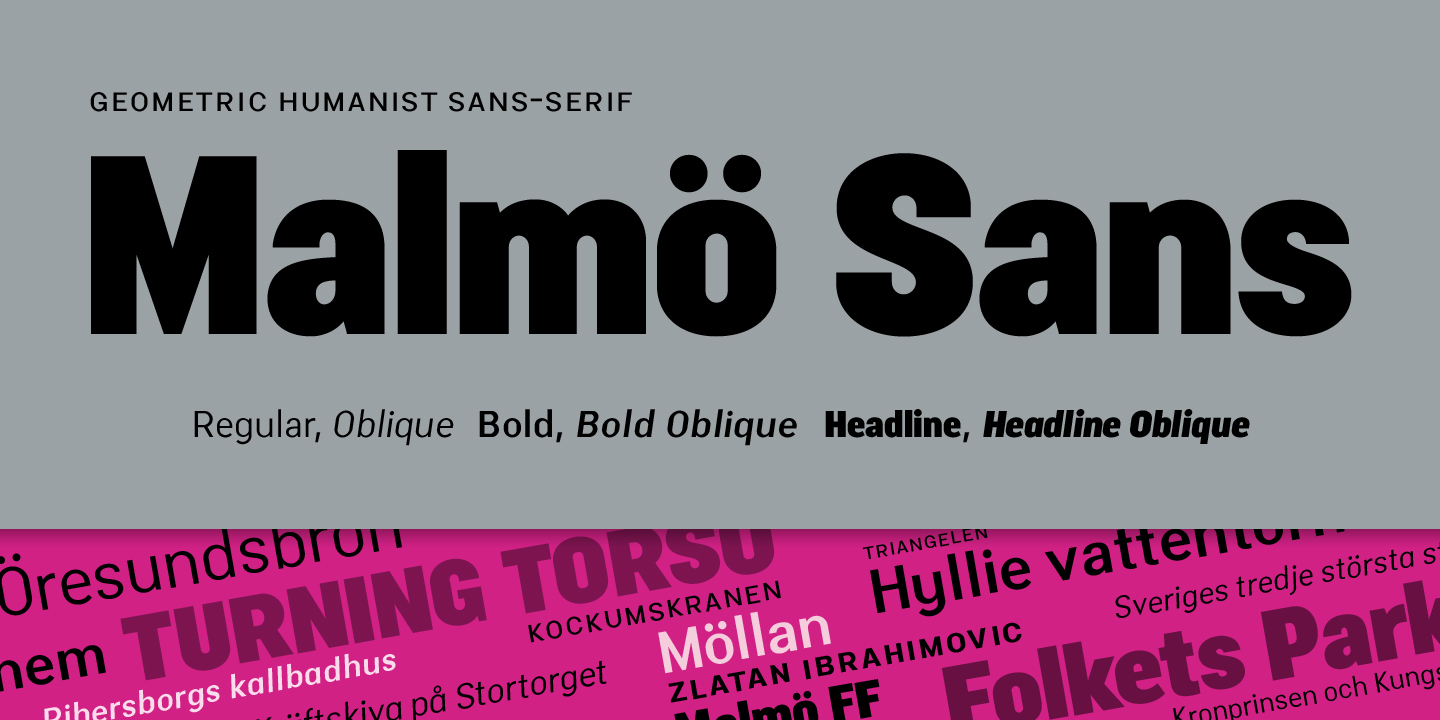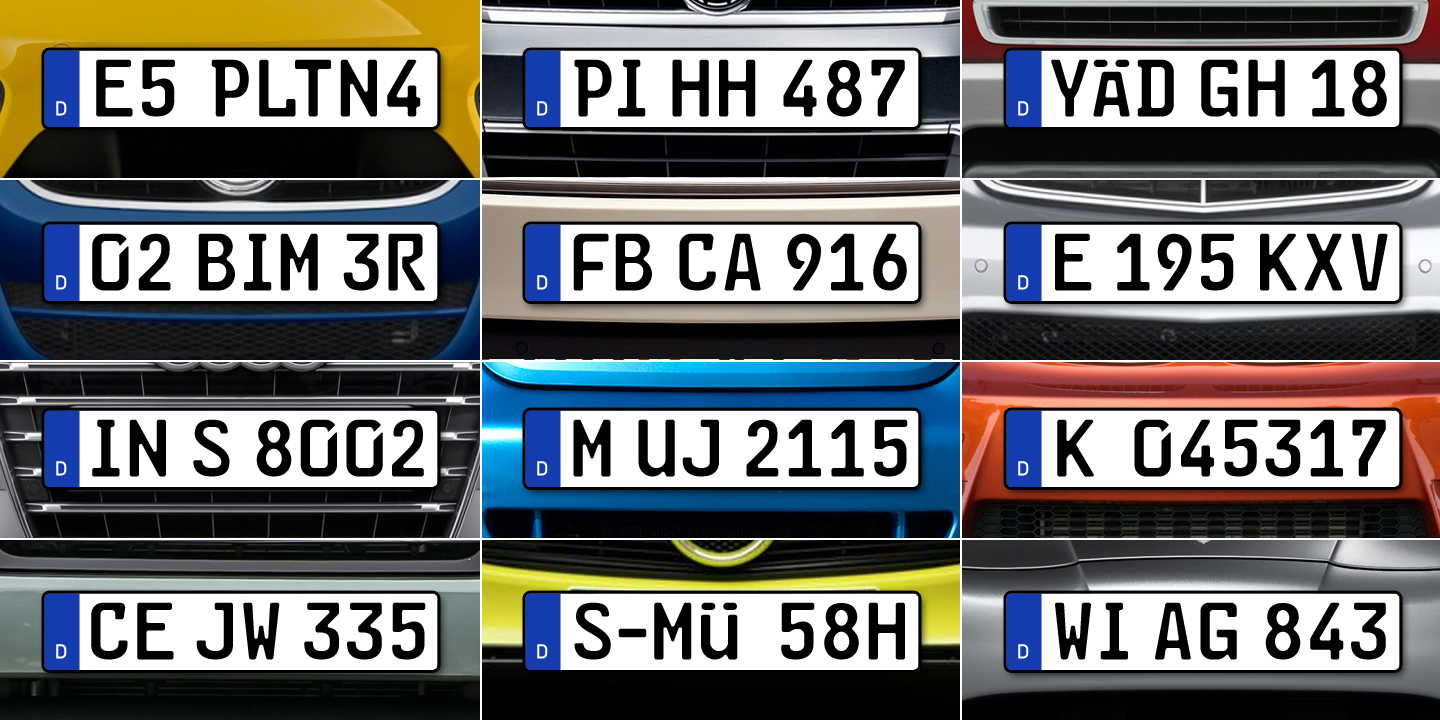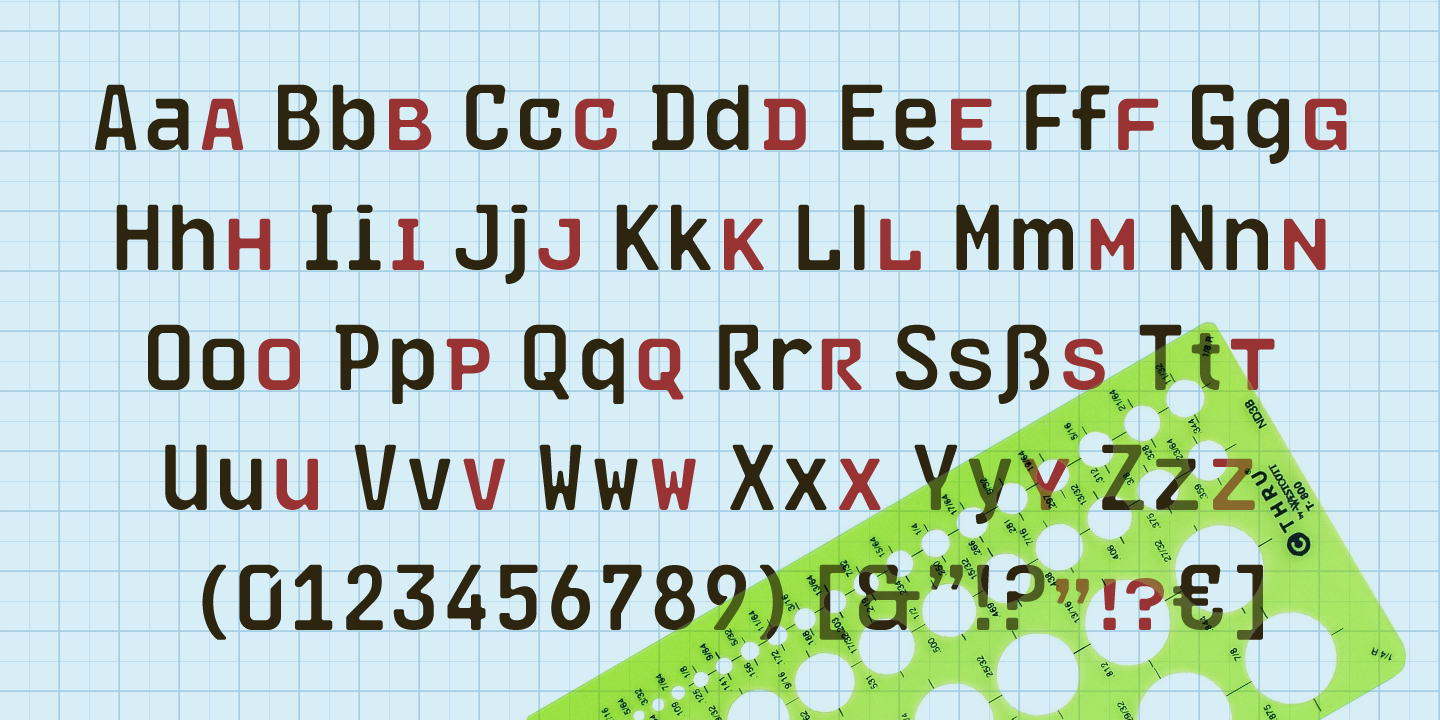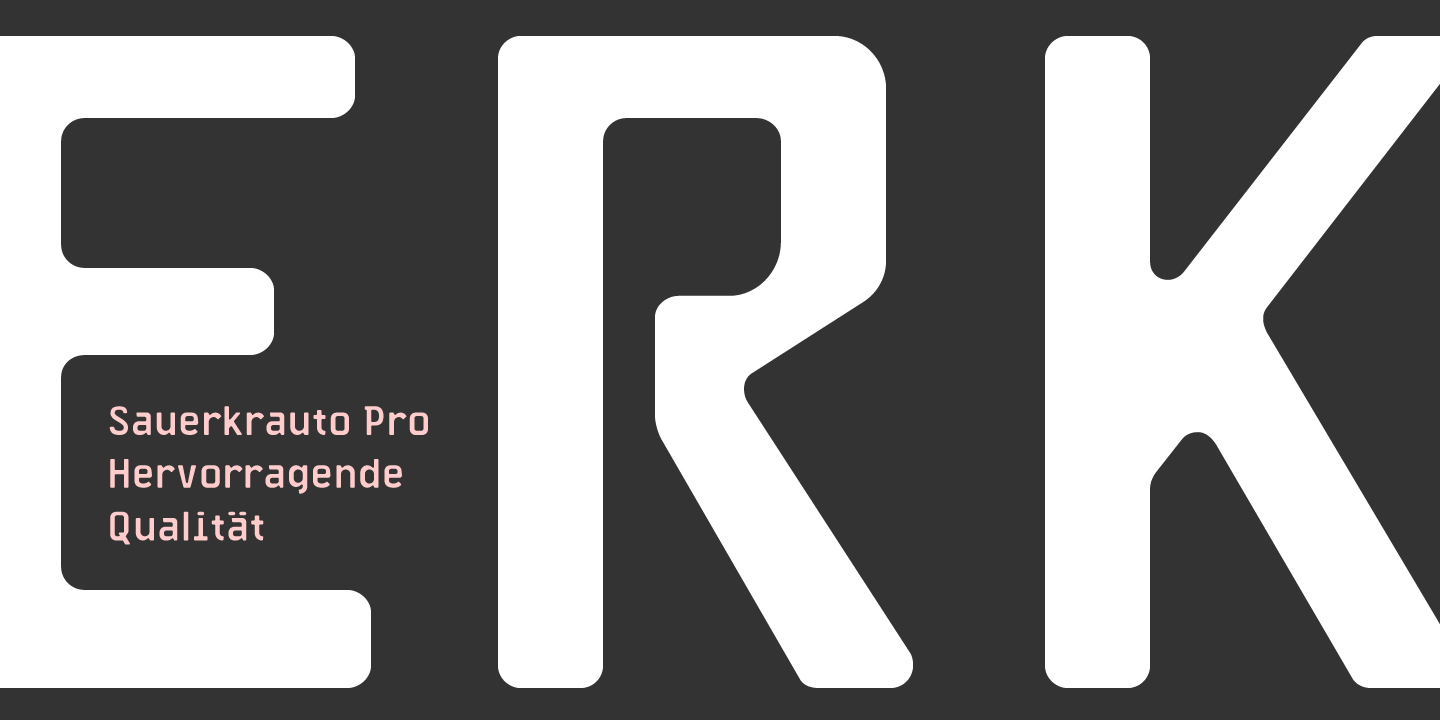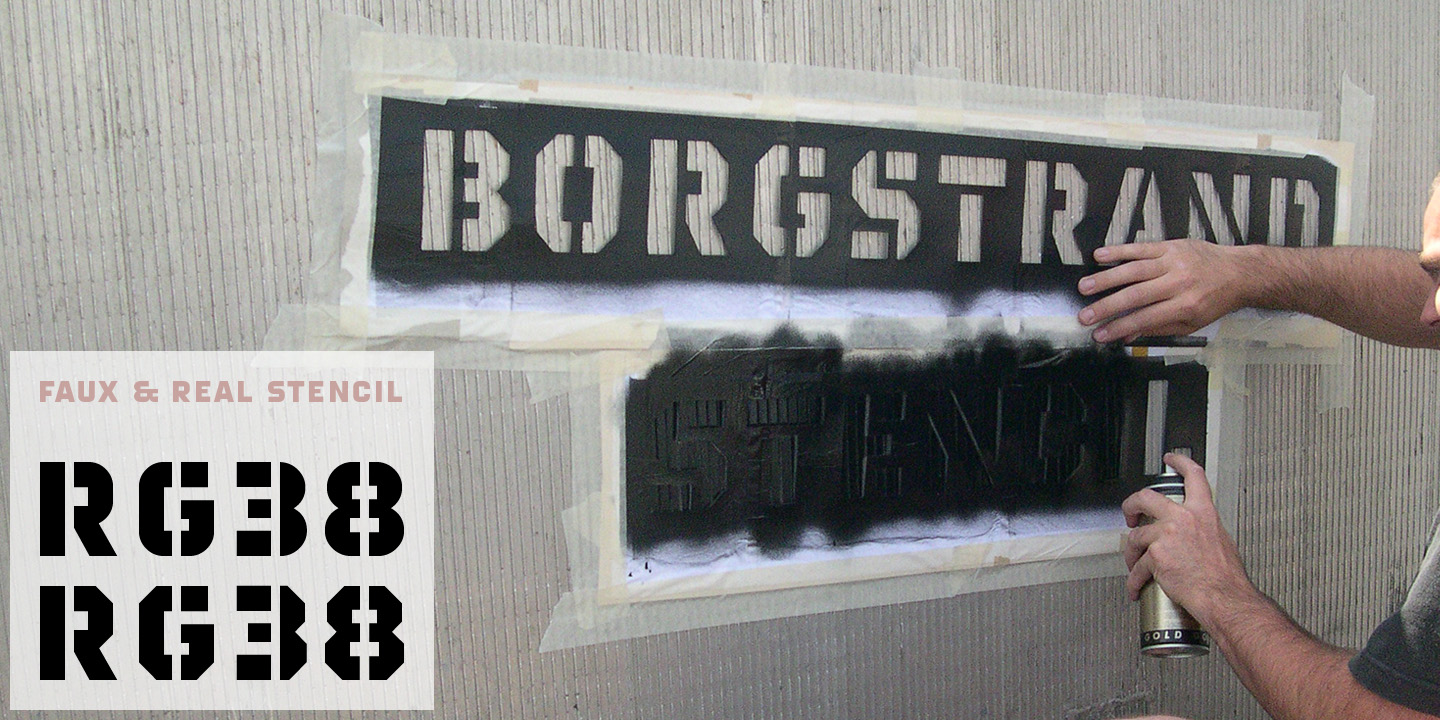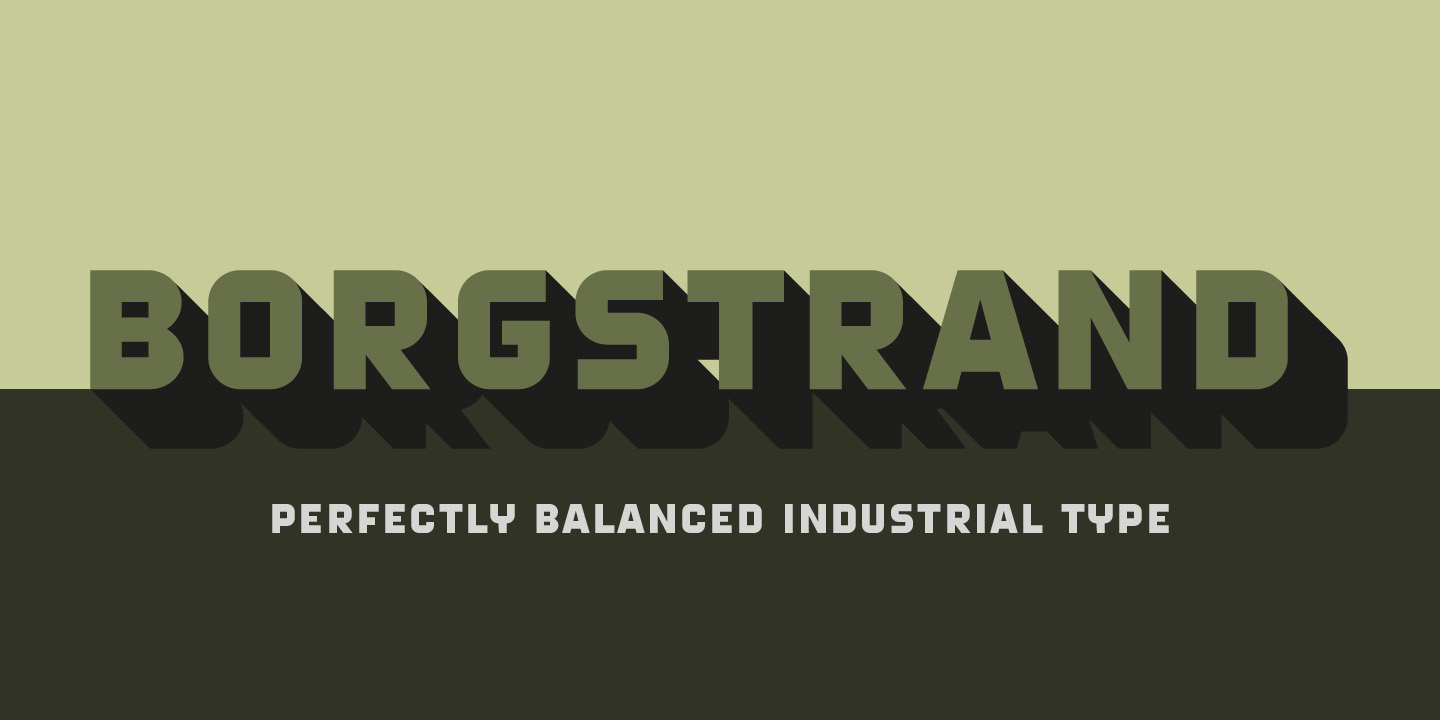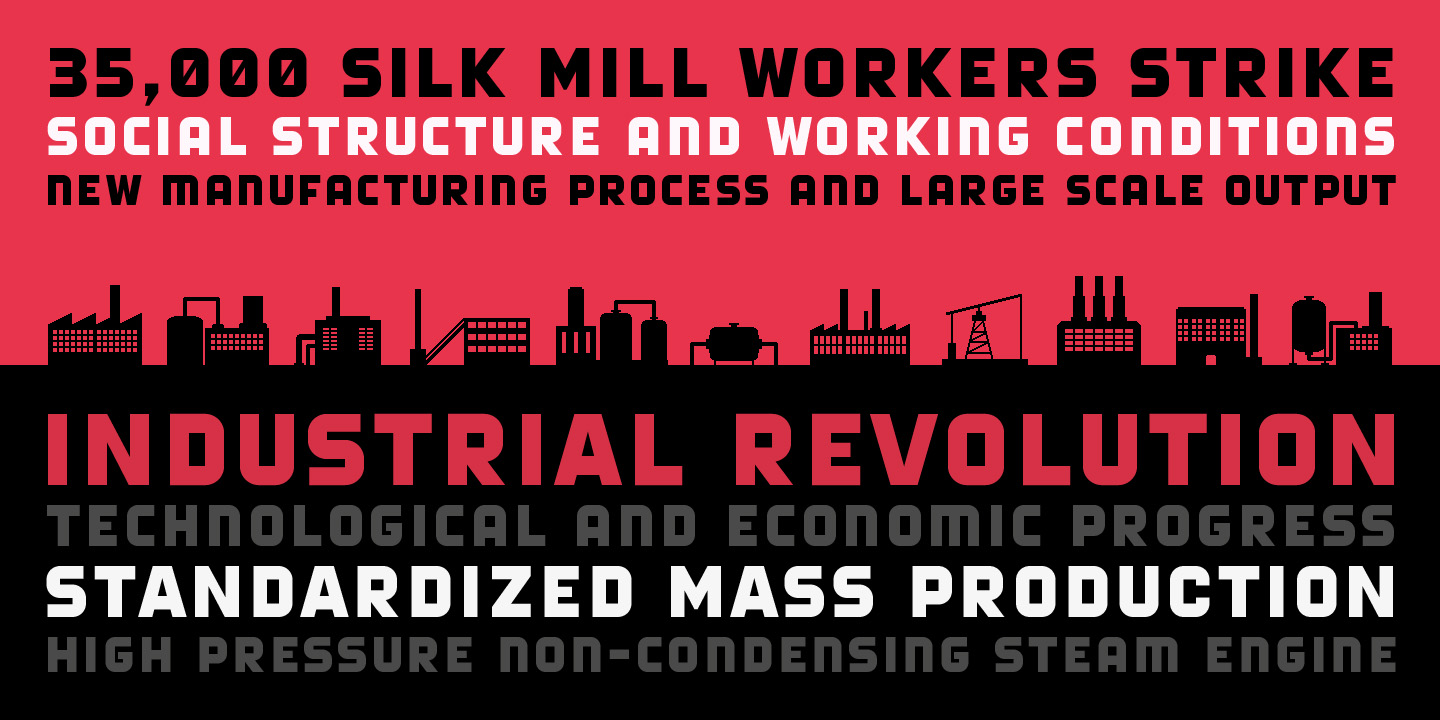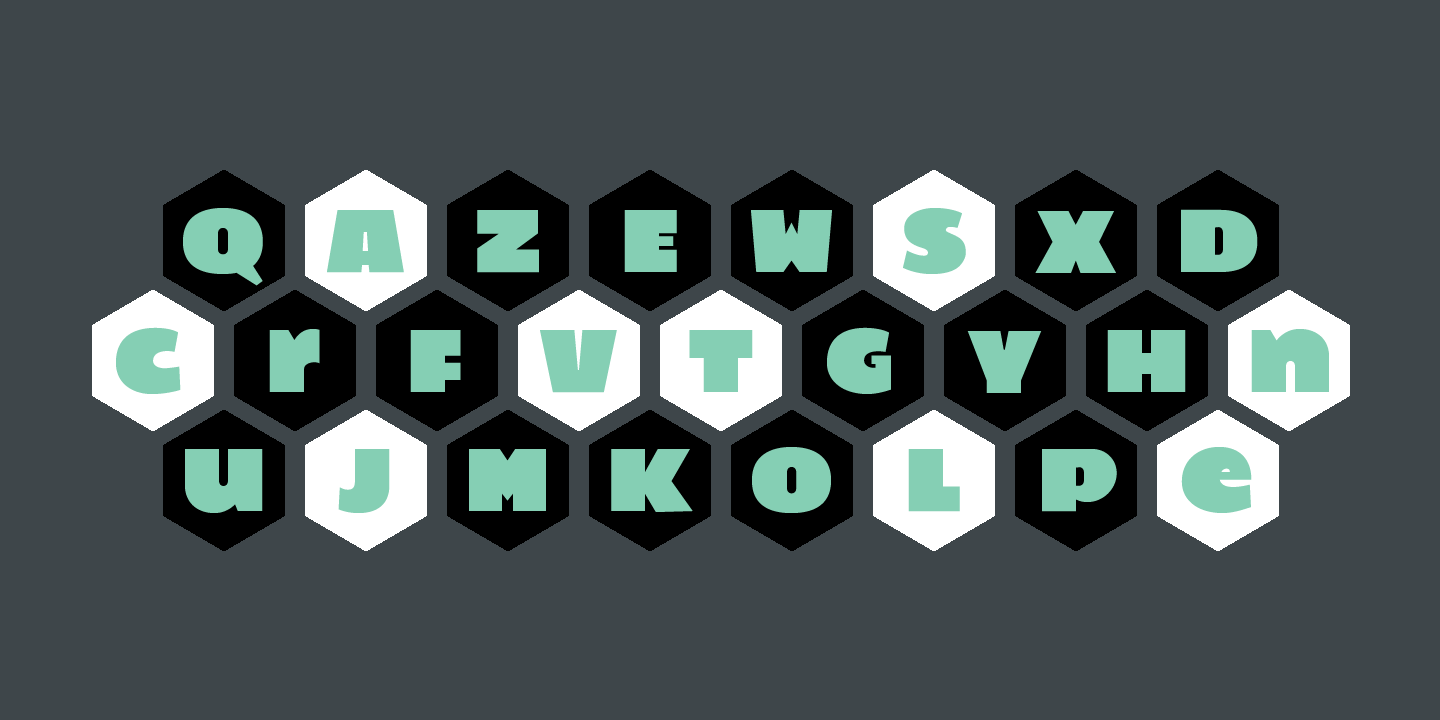
Martin Fredrikson
Martin Fredrikson (Core) started to paint graffiti in the mid 1980s. In 1995, whilst pursuing a career as an artist and freelance illustrator, Martin started his font site. He moves freely within the typeface genres. Sometimes playful/peculiar/childishly simple, sometimes systematic/conceptual/strict — the same goes for his paintings.
Martin now lives and works in Stockholm. Among his most popular fonts are Pixelette, Sauerkrauto, Marfhaus and Backstabber Roman. Motor Mouth and other type is now available from Swedish foundry T4.